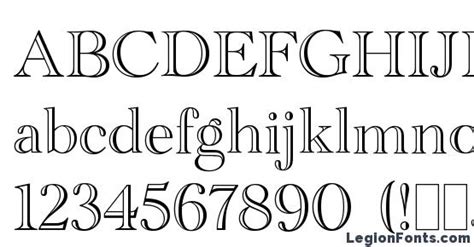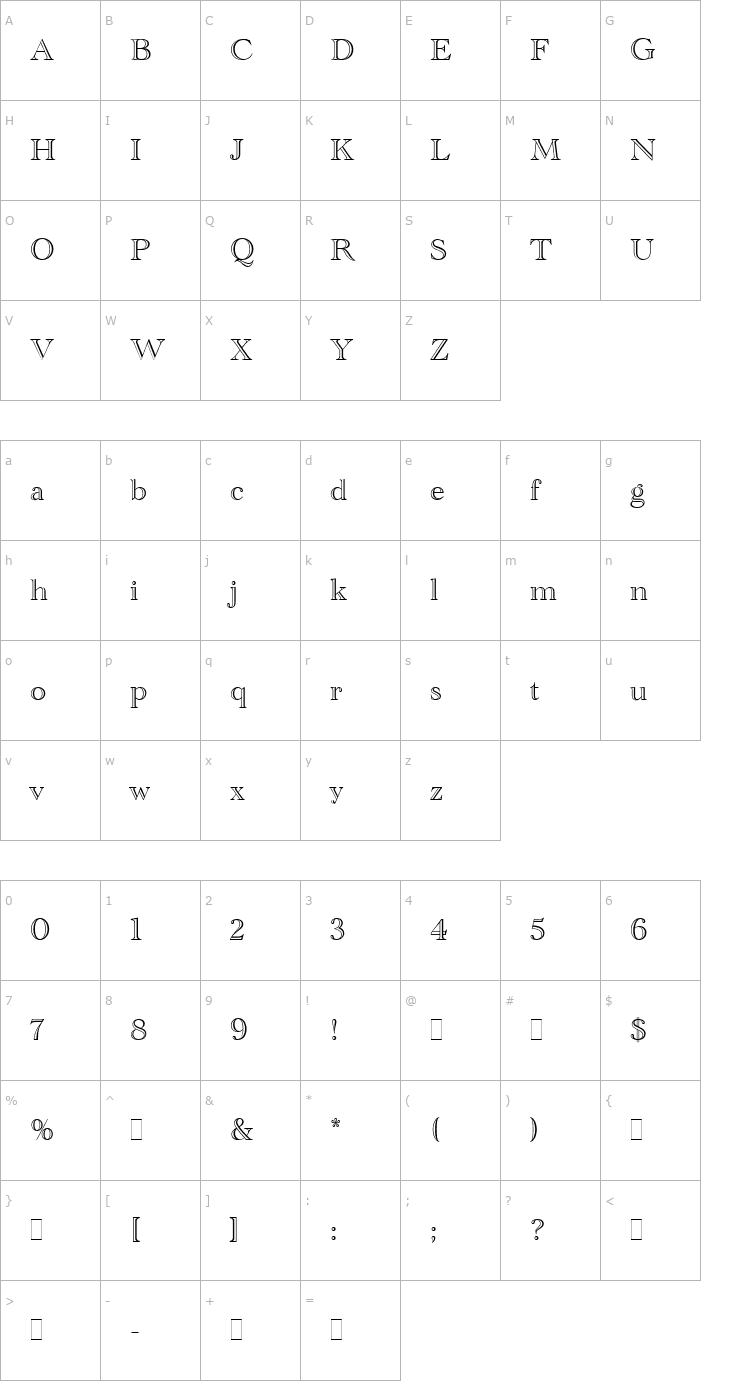
Academy Engraved truetype font
Font Academy Engraved. Vince whitlock developed academy engraved in 1989.
Vince whitlock developed academy engraved in 1989.
Vince whitlock developed academy engraved in 1989. Vince whitlock developed academy engraved in 1989.